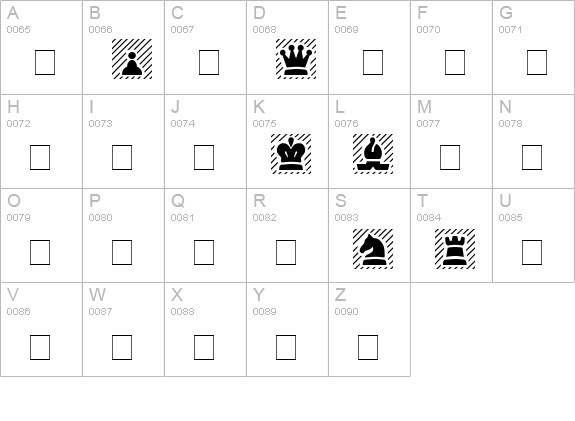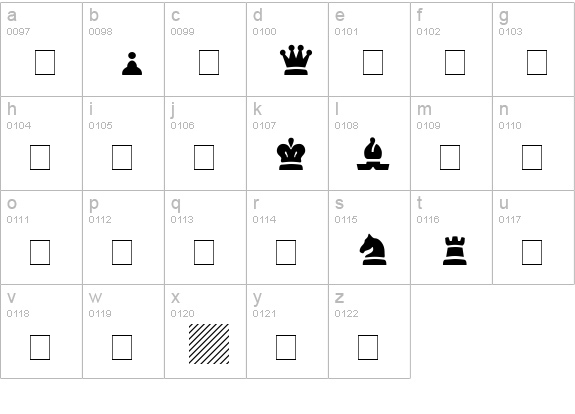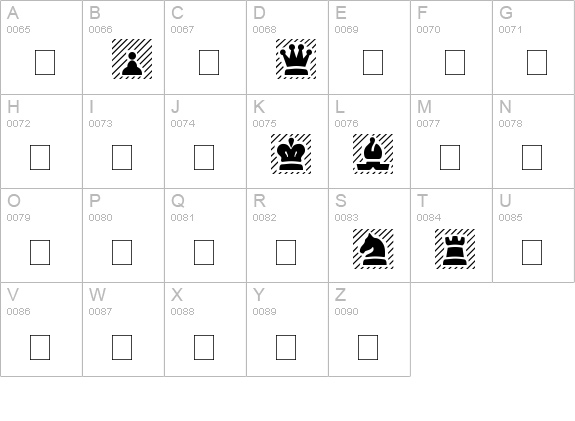
Cheq Bold Font Details
Cheq Bold is a strong, high-contrast variant in the Cheq typeface family \xE2\x80\x94 well suited to headlines, attention-grabbing titles, and strong calls-to-action.
Cheq Bold is a modern and stylish font that exudes confidence and sophistication. Its bold and sharp lines make it perfect for creating attention-grabbing headlines and branding materials. The strong presence of Cheq Bold commands attention and adds a sense of authority to any design project. What's even better is that Cheq Bold is available for free download at FontsMarket.com. This means you can easily access this striking font and incorporate it into your designs without any cost. With Cheq Bold at your disposal, you can elevate your projects and make a lasting impression on your audience. Download Cheq Bold now and start creating visually stunning designs that stand out from the crowd.